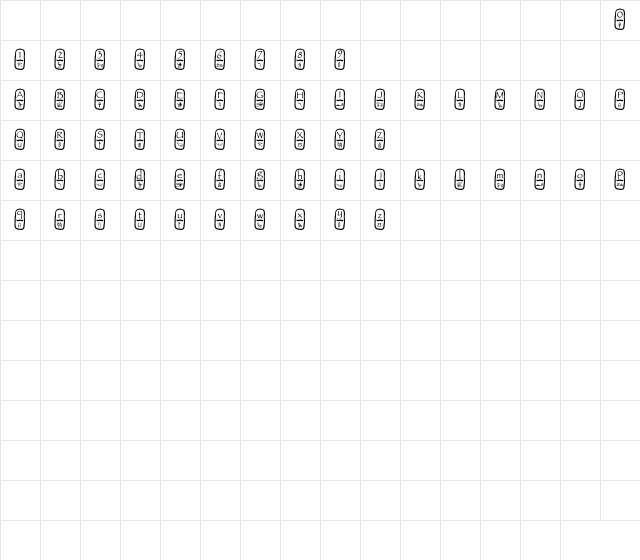
NewFont Regular
Foundry: High-Logic
Designer: High-Logic - Erwin Denissen 1999
Design Context for NewFont
NewFont is a composed and adaptable typeface that performs quietly and consistently across a wide range of design contexts.